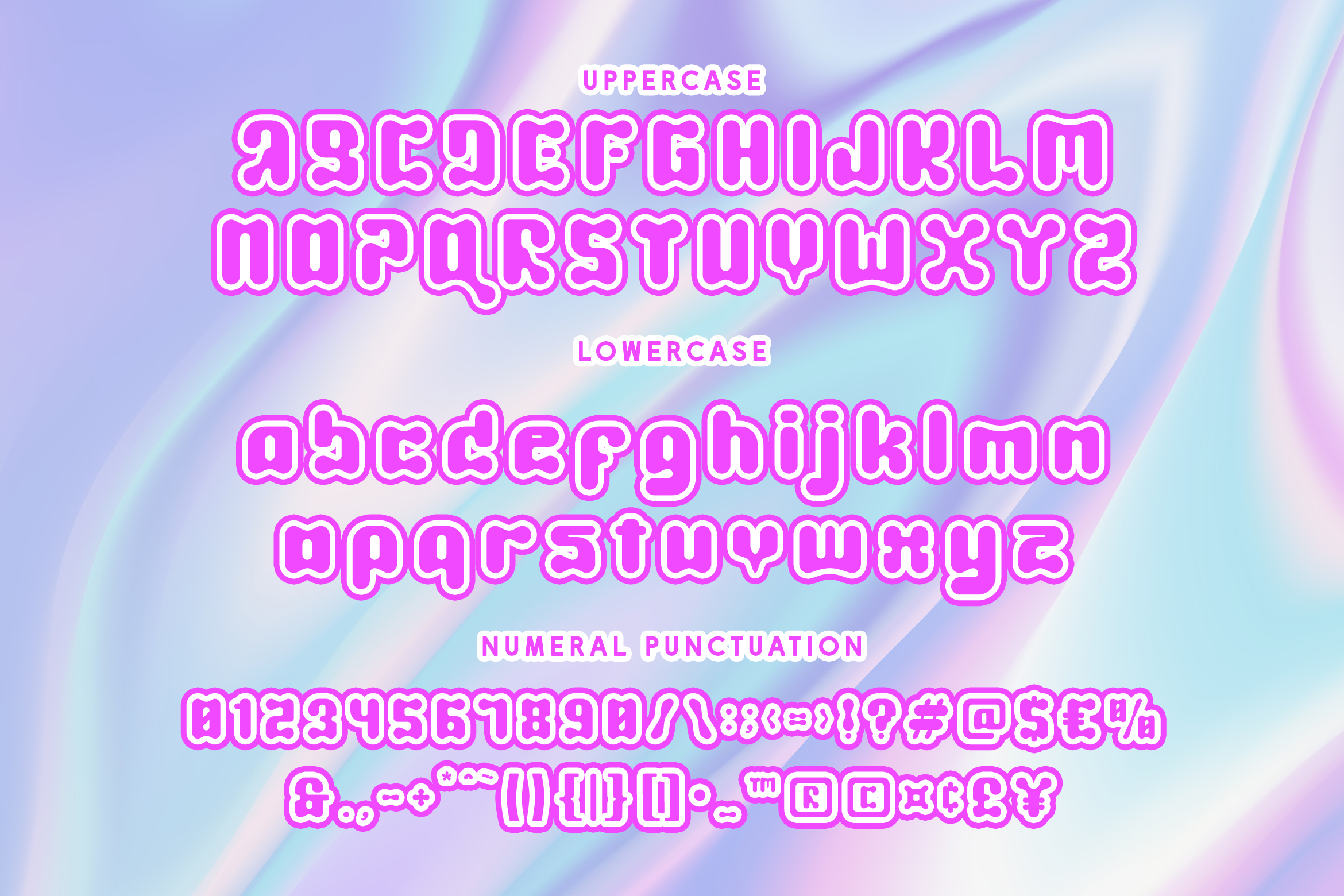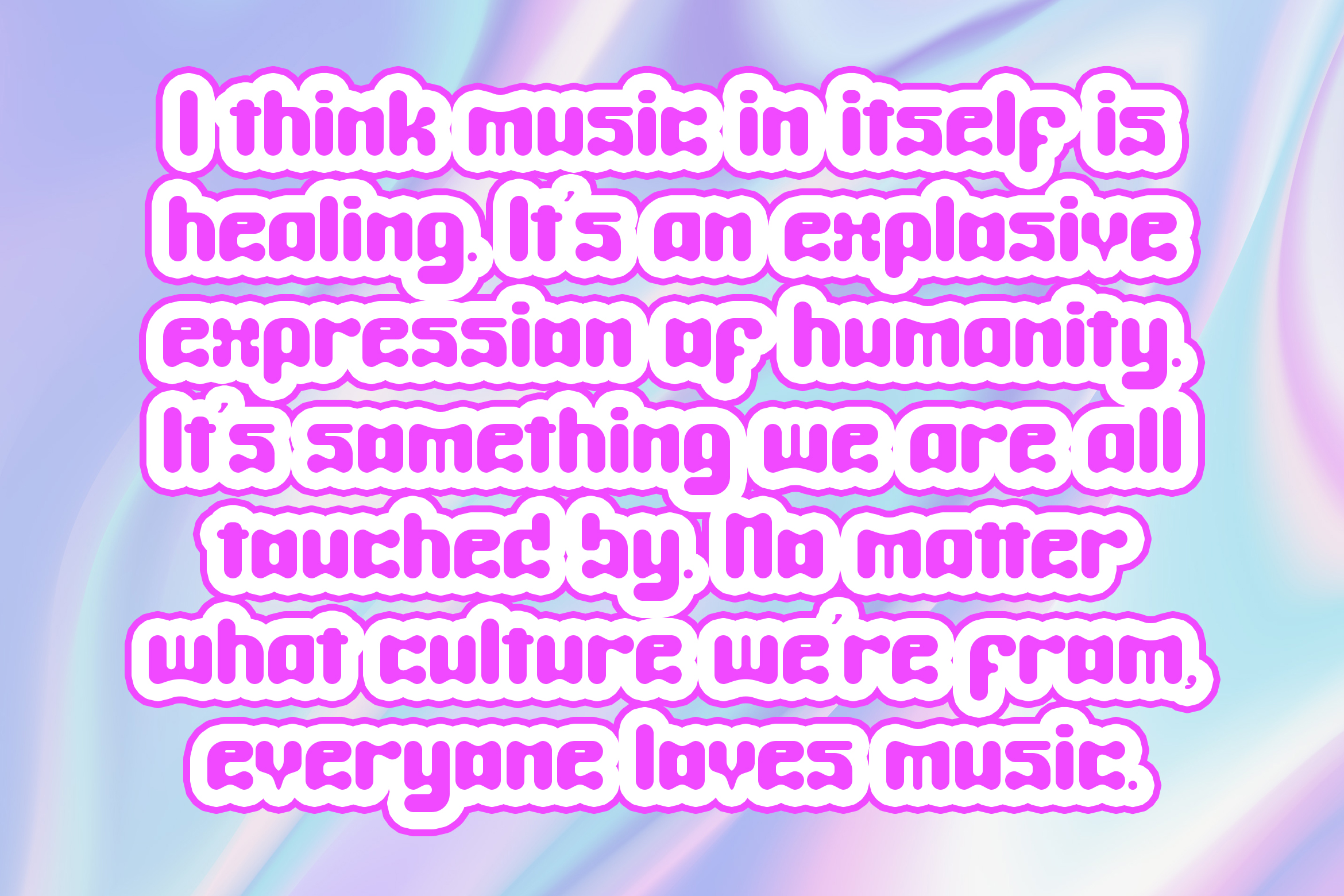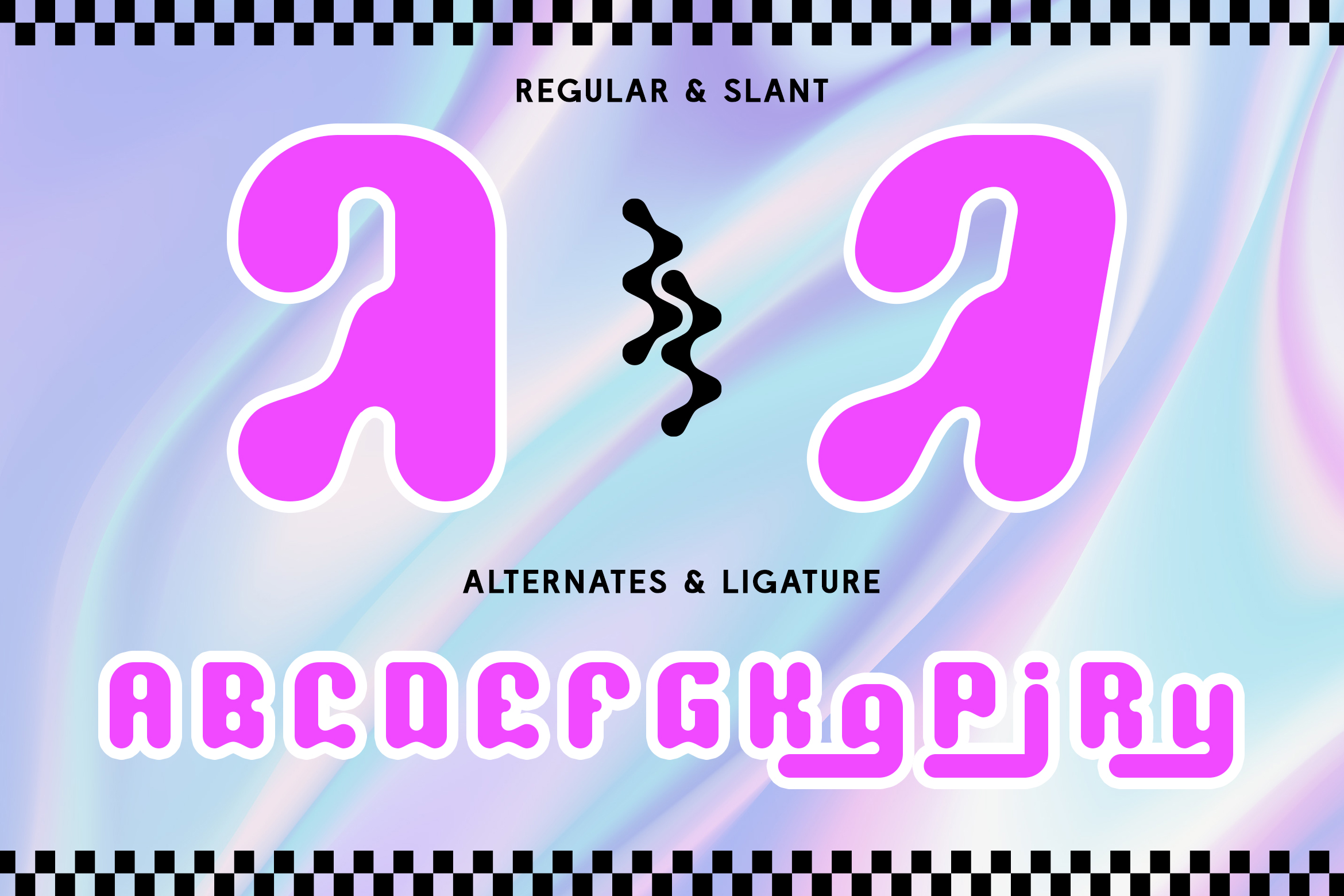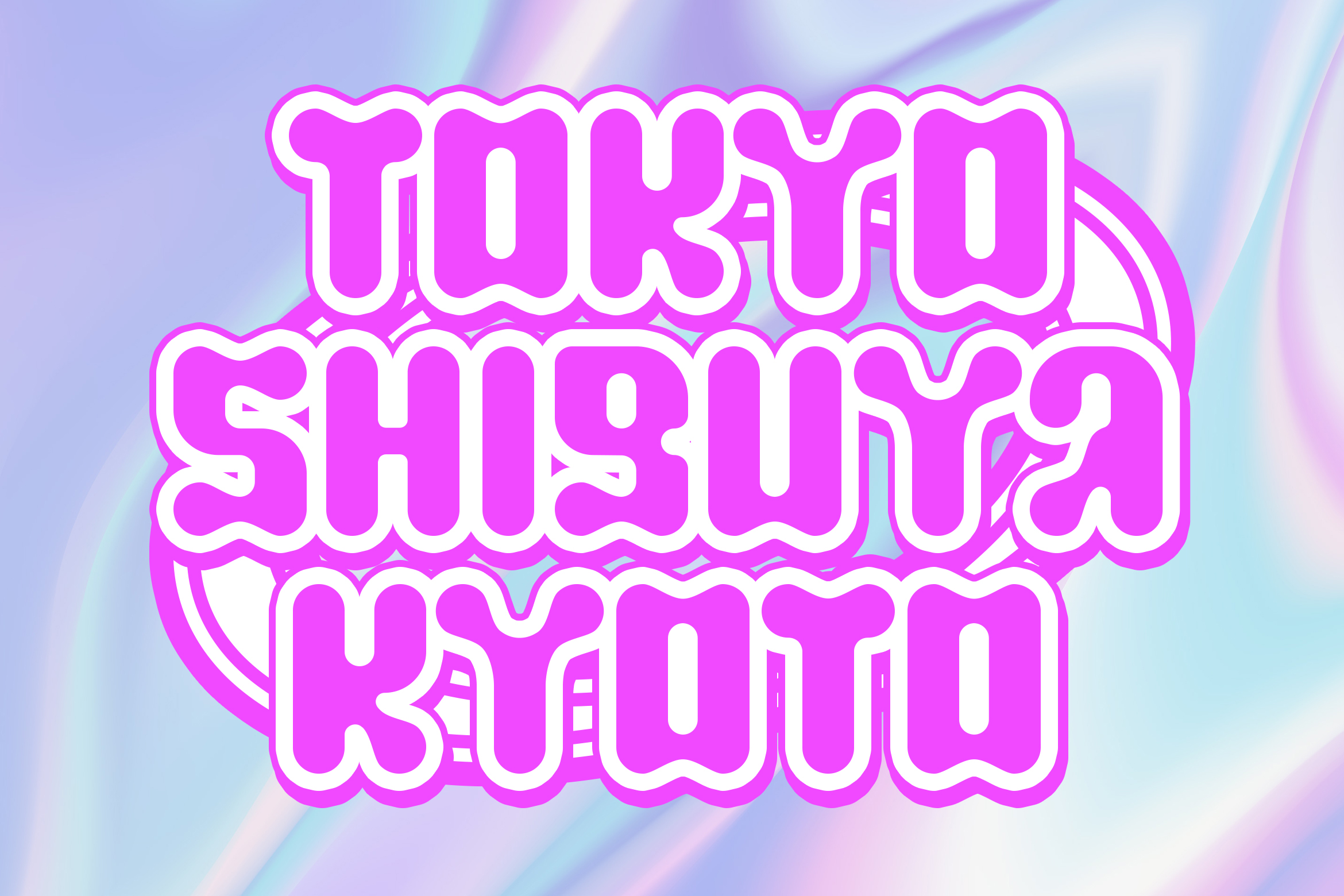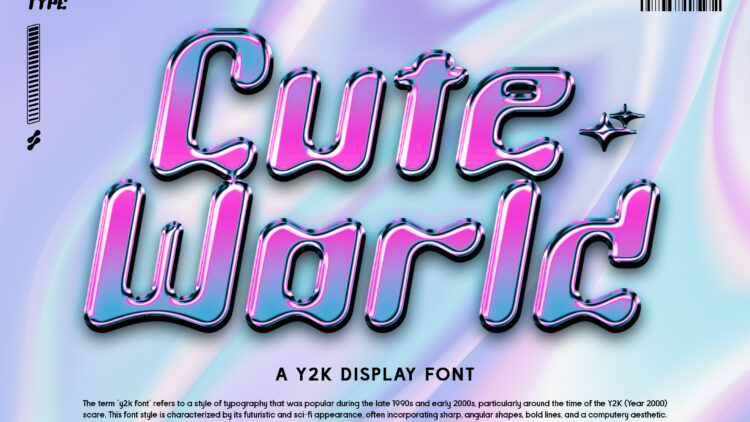
Cute World – y2k display font
Cute World Typeface is a cute and fun font. A font inspired by the current K-POP trend, this font I created is very much used this year & is very versatile, it goes well with various designs, elevating it to the highest level. Add this font to your favorite creative ideas and see the results!
Features: Uppercase, Lowercase, Ligature, Alternate & Multilingual Support
2 Type Style: Regular & Slant